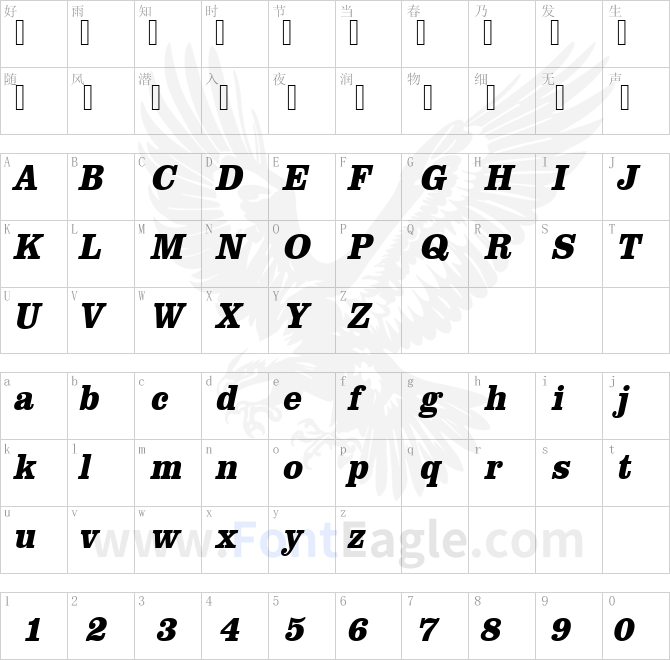
- Font name:URWClarendonTExtNar
- Font Subfamily:Bold Oblique
- Font Subfamily ID:URW:URWClarendonT-BoldExtrNarrObli:1994
- Font Full Name:URWClarendonTExtNar Bold Oblique
- Postscript:URWClarendonT-BoldExtrNarrObli